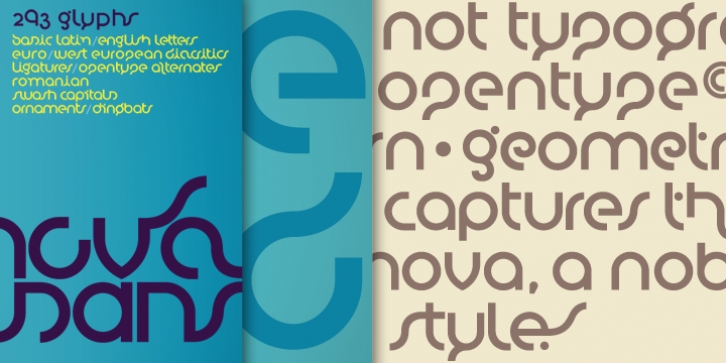
Nova Sans was designed by Rafael Neder, Francisco Martins and published by This is Not Typography. Nova Sans contains 1 style.
NovaSans is a modern geometric sans-serif font which captures the spirit of Bossa Nova, a noble Brazilian music style. Music and typography presents several things in commom, so the idea behind the font is show some of bossa nova's characteristics, like melody, cadence, softness, metric, simplicity, waves, subtleties. Some gaps in representing the source of irregular alignment scores.
NovaSans also was selected for Tipos Latinos Bienal, in the Display faces category.
NovaSans was built with a modular system. Its whole set offers almost 280 glyphs with alternates, dingbats and ornaments.
Conceived to be used as a display typeface, NovaSans is recommended for use at large sizes.